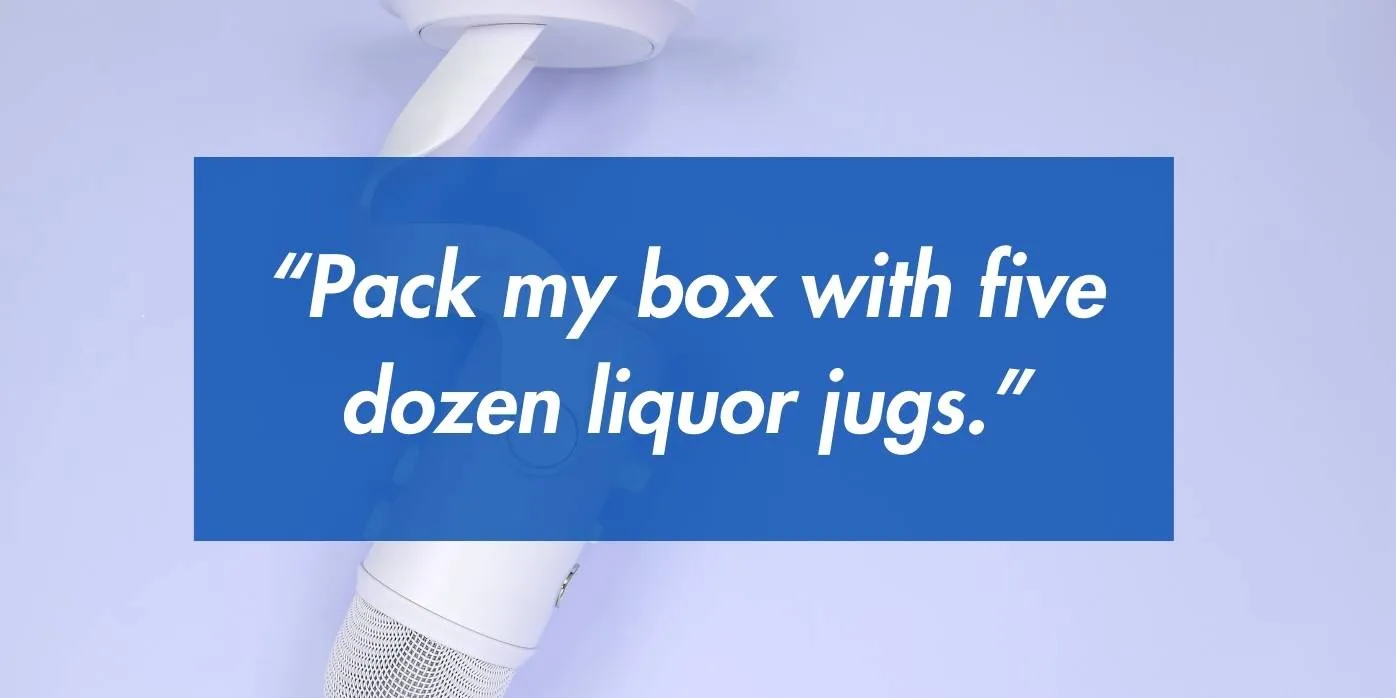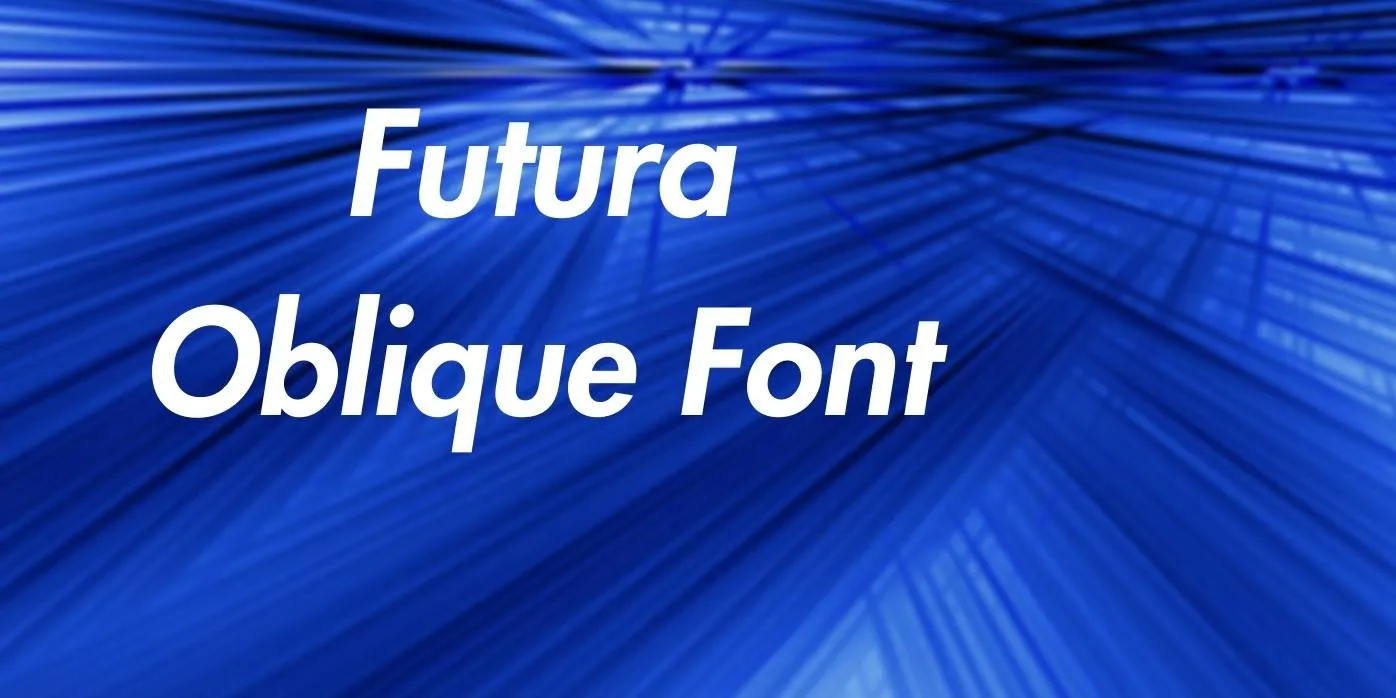
Futura Oblique Font
Here, we introduce Futura Oblique Font a famous typeface that has been widely used in print media. It belongs to the Sans-Serif typeface. This cool font was designed by Type Solutions Inc. This Font is available in a variety of weights, making it perfect for any design project.
Its generator is outclassed for a lot of designs. another updated version of this typeface is similar to the futura std heavy font.